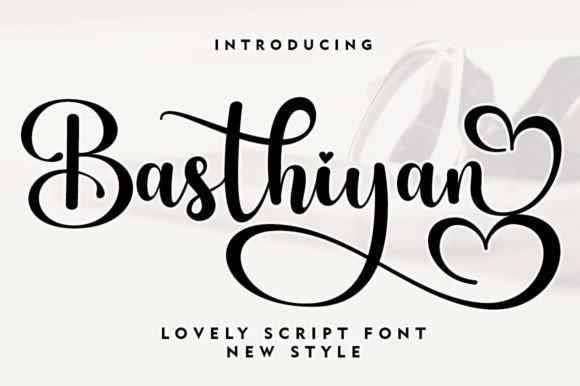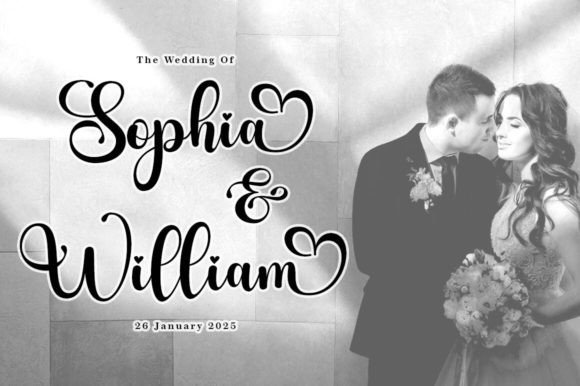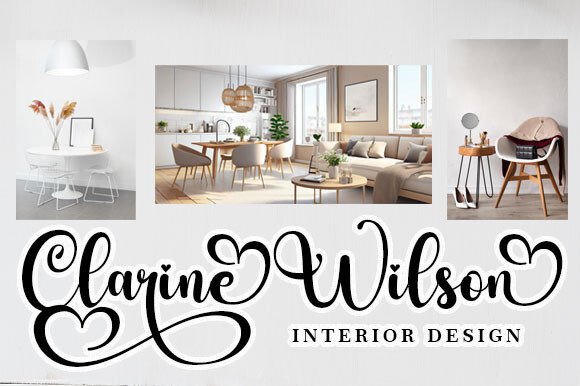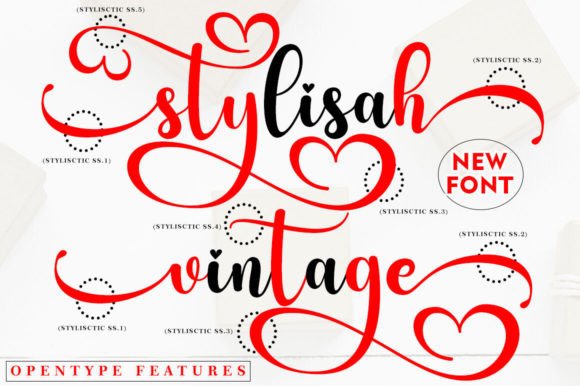
Basthiyan Font: Elegant Script for Wedding Invitations & Logo Design
About the Basthiyan Font
Discover the charm of Basthiyan Font. This font is a perfect blend of modern aesthetics and classic appeal. Basthiyan is an enchanting handwritten font. This versatile script font has a wide spectrum of applications ranging from greeting cards to headlines and is guaranteed to add a romantic feel to your next project.
Basthiyan excels in applications requiring a touch of romantic elegance, such as wedding invitations, branding for luxury goods, or short, impactful headlines. Its fluid strokes work beautifully in logos and short quotes, adding a handcrafted feel. However, its cursive nature makes it less suitable for extended body text or UI elements where readability is paramount; long paragraphs set in Basthiyan would be difficult to decipher.
Pairing Basthiyan with a clean sans-serif like Montserrat or a classic serif like Garamond provides excellent contrast and enhances readability. For a more playful feel, consider pairing it with a geometric sans-serif such as Futura. The combination of Basthiyan’s flowing script with a structured typeface creates visual harmony and prevents the design from becoming cluttered.
Basthiyan’s overall personality is romantic and elegant, yet retains a friendly approachability. It’s best suited for brands aiming for a sophisticated yet approachable image, conveying a sense of charm and quality without appearing overly formal.